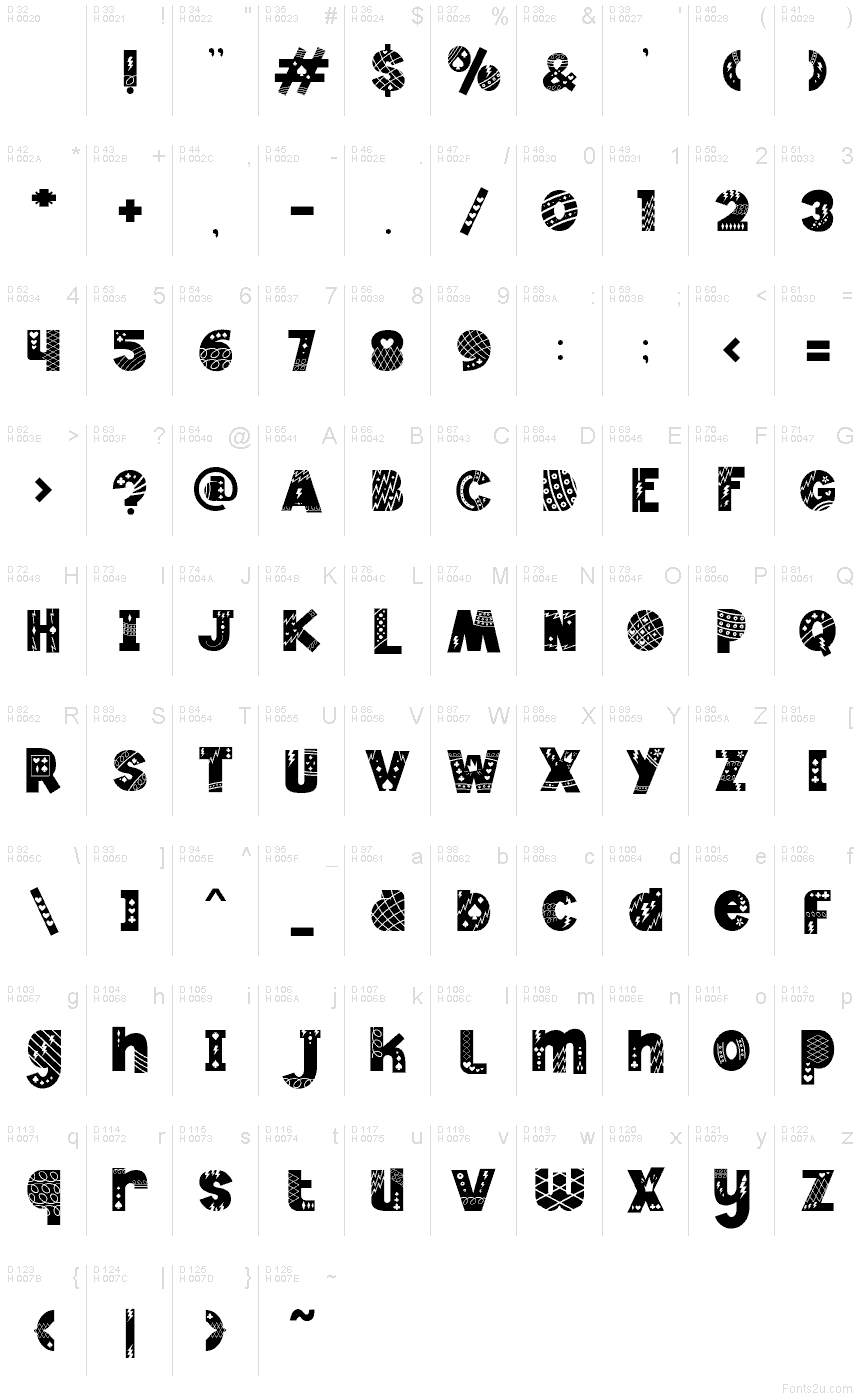
Jester Jumble font by PutraCetol Studio presents a whimsical style that mixes both cartoon and ornamental graphic elements. This display font has a bold presence with decorative patterns for each character. These patterns range from lines to different shapes, ornaments, and cutouts-all combining to achieve the fun aesthetic of the type.